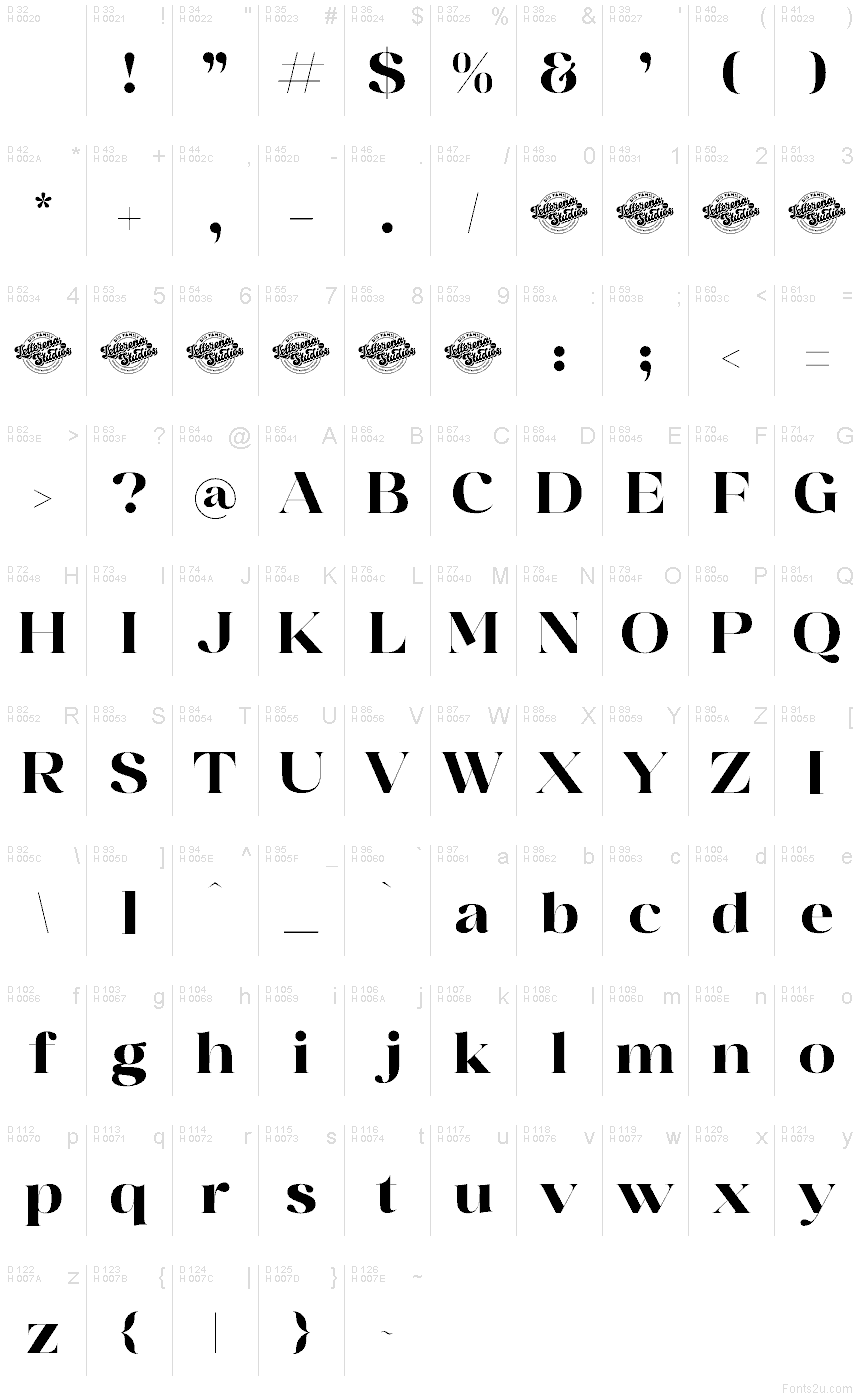
Megisha DEMO VERSION
Megisha font by Letterena Studios is a free modern serif typeface with the drama turned all the way up. Heavy, inky strokes and sharply cut edges give each letter a sculpted feel, while the tight rhythm across the wordmark creates a bold, couture-style presence. It feels like something stamped into thick card or embossed on a perfume bottle—dense, confident, and unmistakably luxurious.
Using Megisha, your headlines and logos immediately take on a fashion-forward, editorial tone. This free font works beautifully for branding, magazine covers, packaging, posters, social media graphics, and statement invitations where you want a rich, dramatic wordmark. Keep it large so its curves and weight can breathe, and pair it with a clean, light sans serif for body text to let Megisha carry the spotlight.